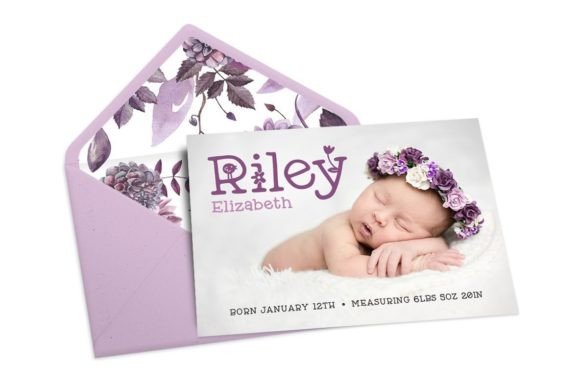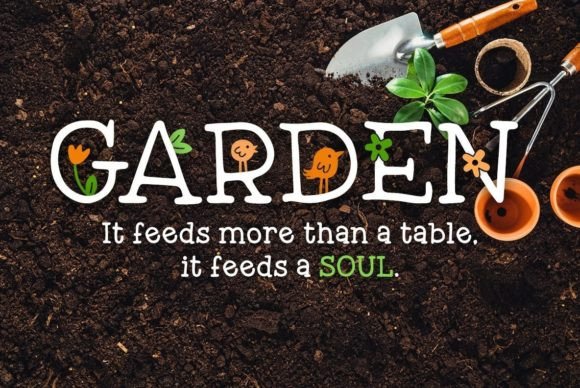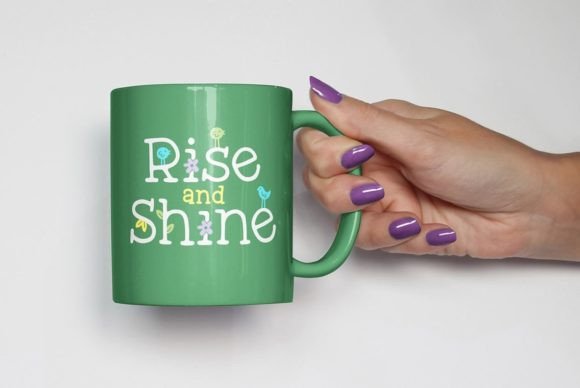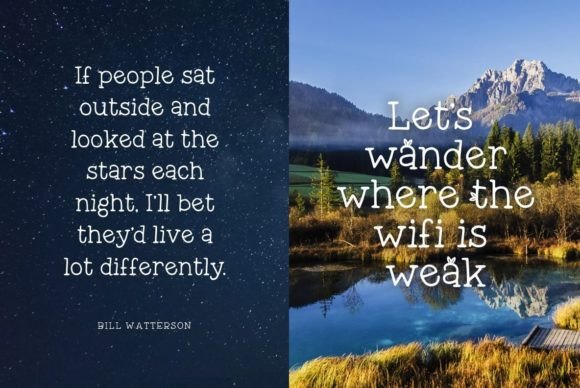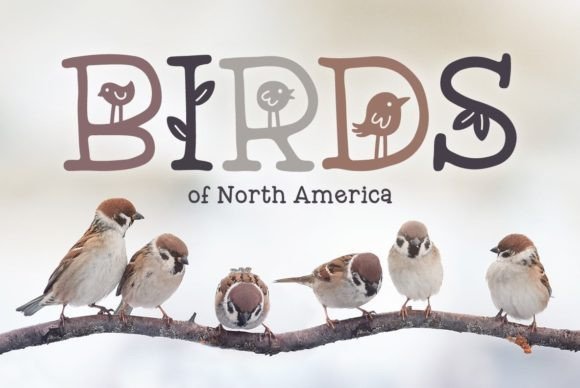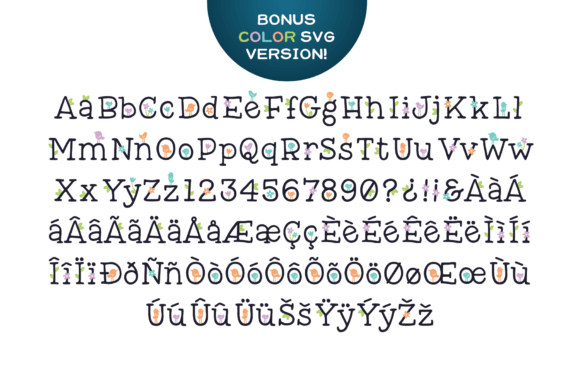
Introduction to Mother Nature Font
Mother Nature is a beautiful font that will give your projects a classic, yet fun and unique feel.
Perfect for birth announcements, wedding invitations, or anything that needs a touch of cuteness .